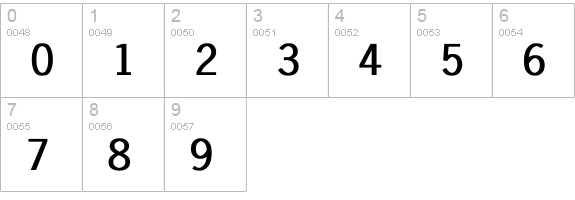
NewsGothic Bold is a strong, high-contrast variant in the NewsGothic typeface family \xE2\x80\x94 well suited to headlines, attention-grabbing titles, and strong calls-to-action.
Introducing NewsGothic Bold font, a sleek and modern typeface that exudes confidence and authority. This bold font is perfect for making a statement in headlines, titles, and other prominent text elements. With its strong and commanding presence, NewsGothic Bold demands attention and leaves a lasting impression on viewers. What sets NewsGothic Bold apart is its versatility - it can be used in a variety of design projects, from editorial layouts to branding materials. The clean lines and distinct letterforms of this font make it a popular choice among designers looking to convey a sense of professionalism and sophistication. And the best part? NewsGothic Bold is available for free download at FontsMarket.com. So go ahead and add this powerful font to your collection today to elevate your designs and make a bold statement that won't go unnoticed.